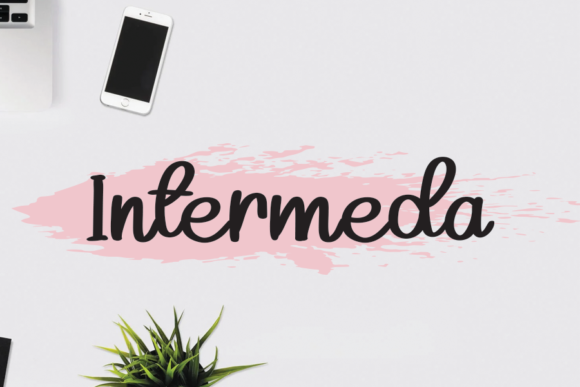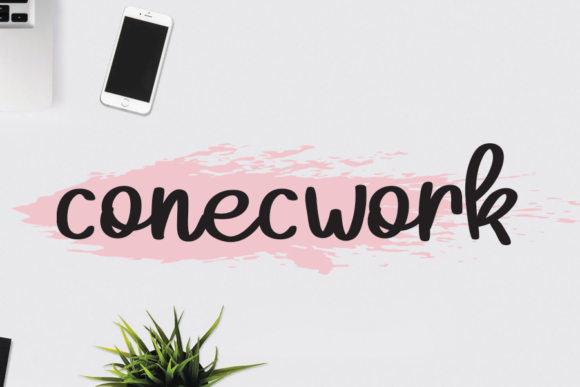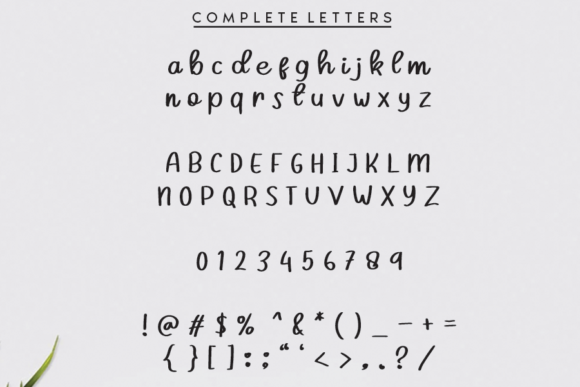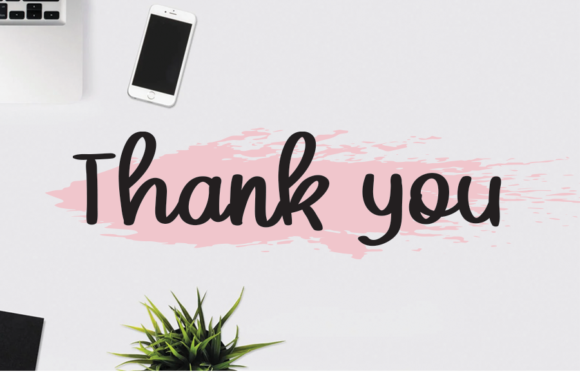
Wrap Your Designs in Love with Hugework Font
Have you ever found yourself scribbling down ideas in a notebook, only to realize that the scribbles themselves have become an integral part of your design concept? This is exactly what happened to me when I stumbled upon the Hugework Font. Its whimsical, handwritten style is the perfect blend of playfulness and professionalism, making it an instant favorite among designers.
As a designer, you’re always on the lookout for that special something that sets your designs apart. That’s where the Hugework Font comes in – a sweet and friendly font that’s as versatile as it is charming. Its natural, unique style makes it incredibly fitting to a large pool of designs, from social media graphics to wedding invitations.
Whether you’re a seasoned pro or just starting out, the Hugework Font is an invaluable addition to your design toolkit. With its endless possibilities, the only limit is your imagination – and that’s what makes it truly special.
Hugework Font Key Features
- Font Family: Hugework Font comes in multiple font families, including Hugework, Hugework Bold, Hugework Italic, and Hugework Bold Italic.
- Unique Characteristics: Hugework Font features a unique, hand-drawn style with subtle irregularities and texture, giving it a distinctive, human touch.
Hugework Font Review
I recently had the chance to work with the Hugework font, and I must say it’s a unique addition to any designer’s toolkit. Here’s my honest review:
- Unique aesthetic: Hugework font has a distinct, hand-drawn feel that sets it apart from more traditional fonts.
- Expressive: The font’s variability in letterform and spacing gives it a sense of character that’s perfect for creative projects.
- Easy to read: Despite its unconventional design, Hugework font is surprisingly legible, making it a great choice for body text.
- Limited support: Hugework font may not be compatible with all software or operating systems, which can be a problem for designers working across different platforms.
- Not ideal for headlines: While the font is great for body text, its irregularity can make it difficult to read in larger sizes or as headings.
Overall, I think Hugework font is a great addition to any designer’s toolbox, but it’s not a one-size-fits-all solution. Use it for creative projects where its unique aesthetic can shine, and be aware of its limitations when working on more traditional designs.
The Hugework Font is ideal for creating playful and emotive designs. Some common use cases include:
- Social media graphics
- Print materials (business cards, brochures, etc.)
Tips for getting the most out of the Hugework Font include experimenting with different font sizes and combinations, and using it in conjunction with other playful design elements.